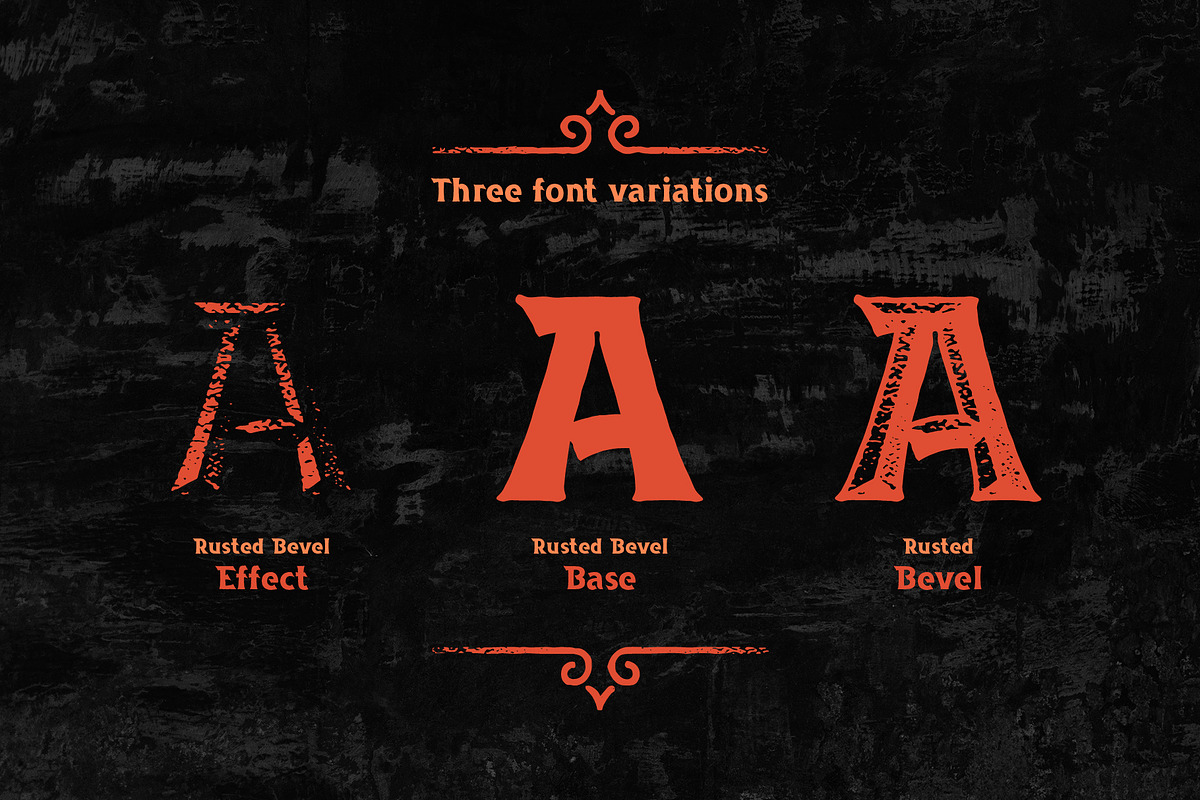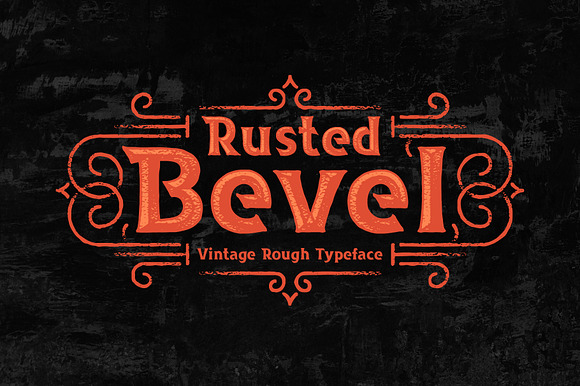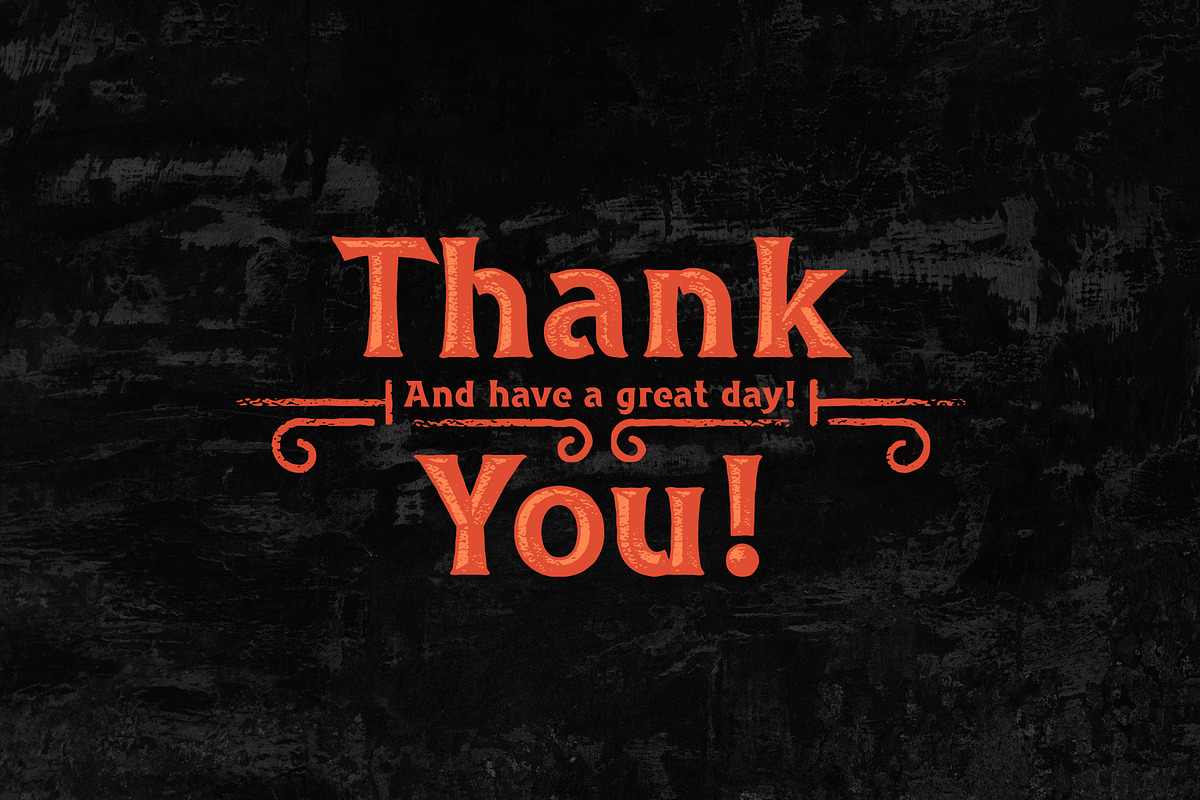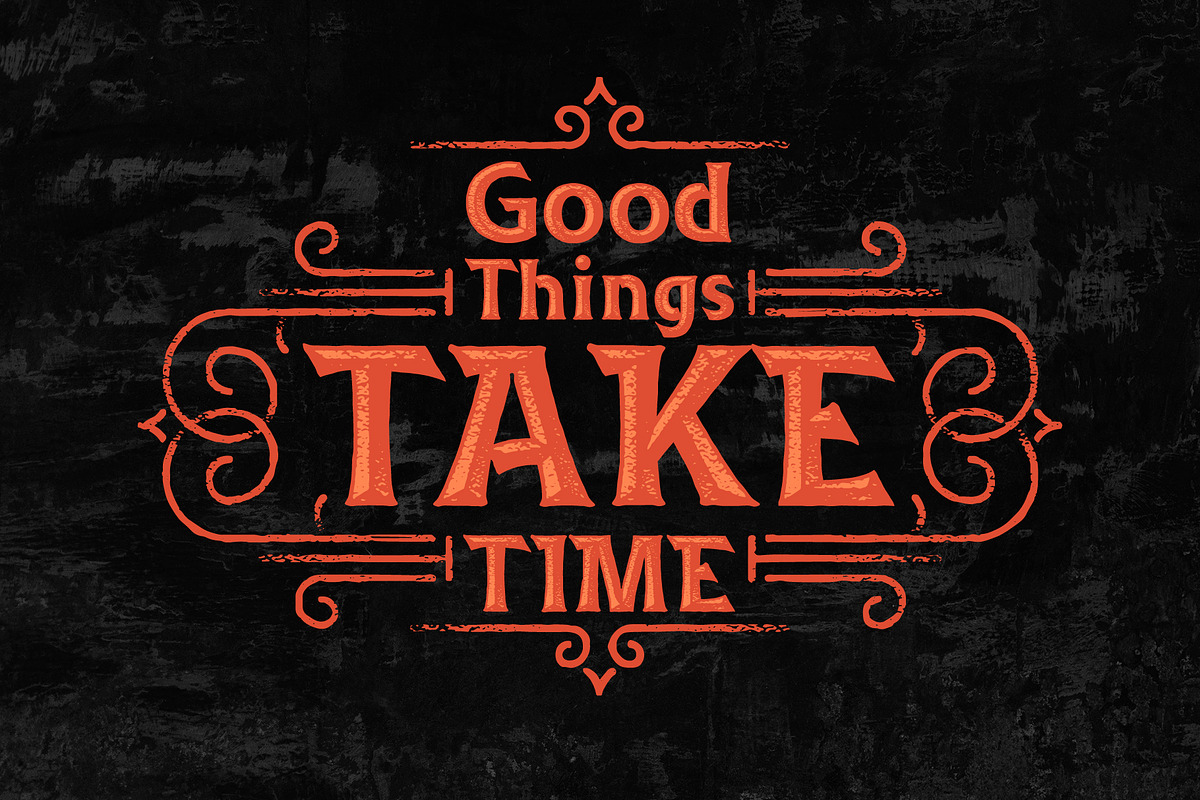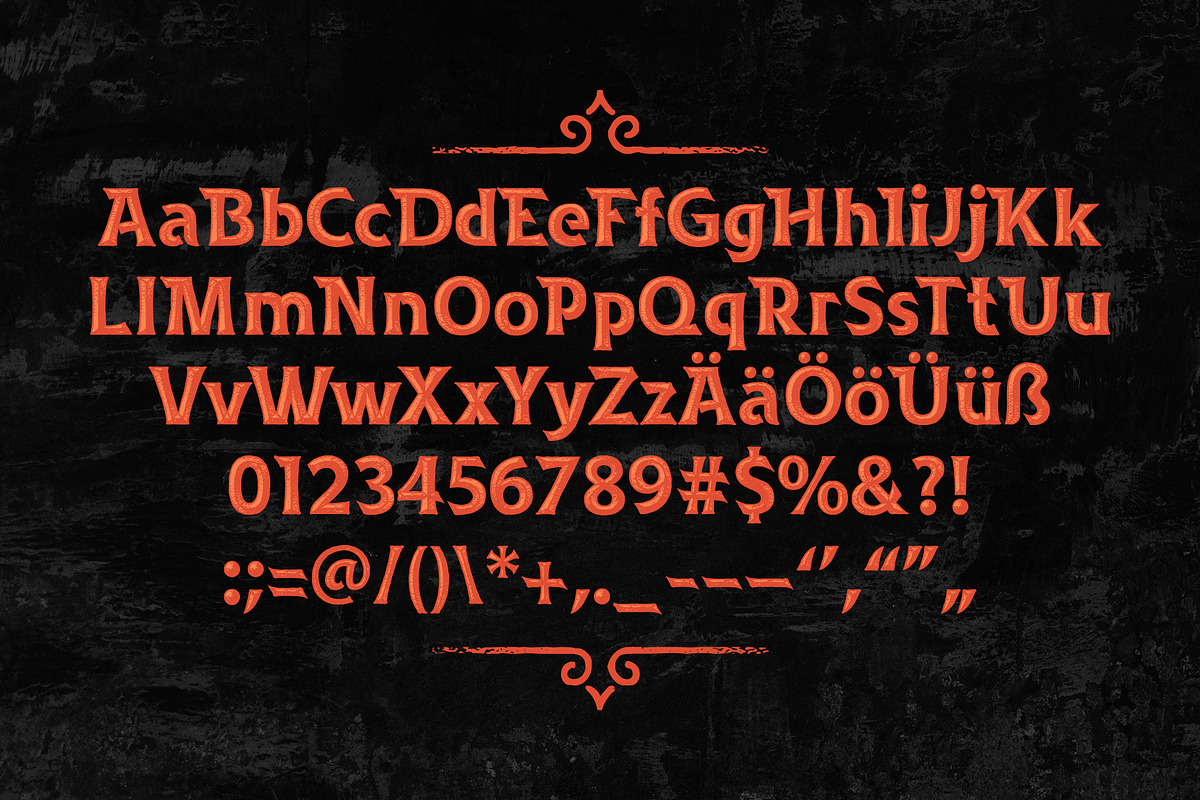
Rusted Bevel Typeface
Hi! Introducing a vintage rough font set "Rusted Bevel". It includes three font files for combining and easy recoloring a textured bevel effect. Also, as a bonus, you will get a lettering poster with ornate (3rd screenshot) in vector eps format. All available characters and supported languages you can see on the 4th screenshot.
- It includes three font files for combining and easy recoloring a textured bevel effect.
- All available characters and supported languages you can see on the 4th screenshot.
Why Rusted Bevel Typeface is worth a look
Rusted Bevel Typeface by Gleb Guralnyk fits naturally into Branding, posters, packaging, typography.